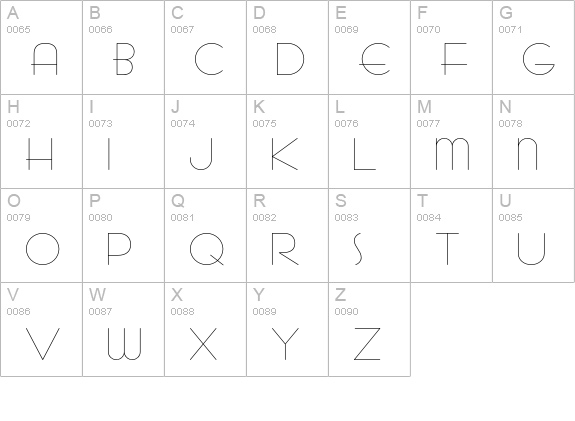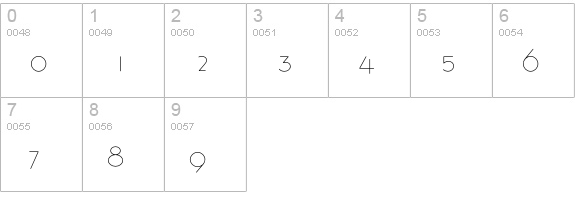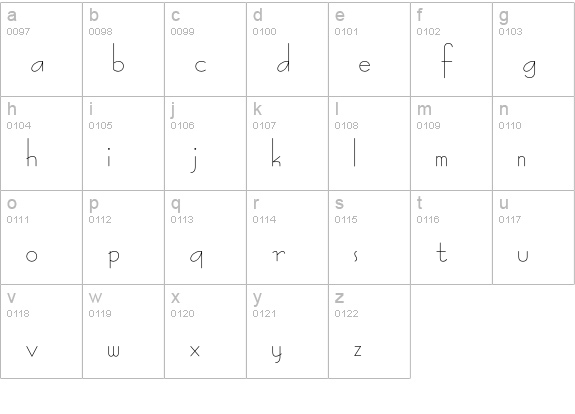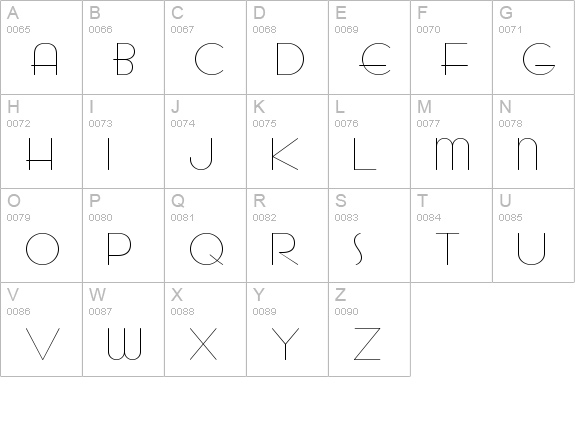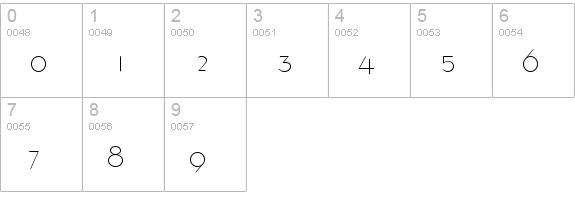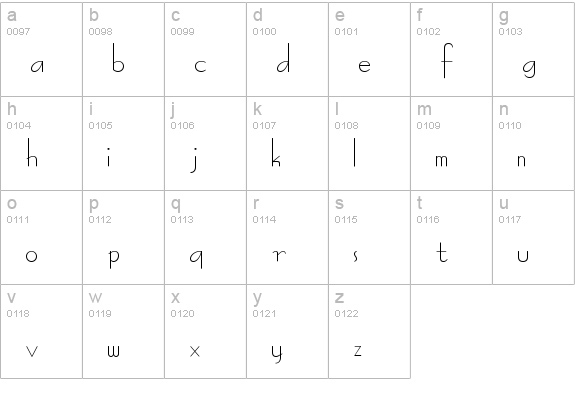
BernhardFashionICG-Alt is a stylish and sophisticated font that exudes elegance and modernity. With its sleek lines and contemporary design, this font is perfect for adding a touch of class to any project. The versatility of BernhardFashionICG-Alt makes it ideal for a wide range of design applications, from fashion magazines to luxury branding. What makes BernhardFashionICG-Alt even more appealing is that it is available for free download at FontsMarket.com. This means that you can easily access this exquisite font without having to spend a penny. Don't miss out on the opportunity to elevate your designs with the timeless charm of BernhardFashionICG-Alt. Download it today and bring a touch of sophistication to your creations.